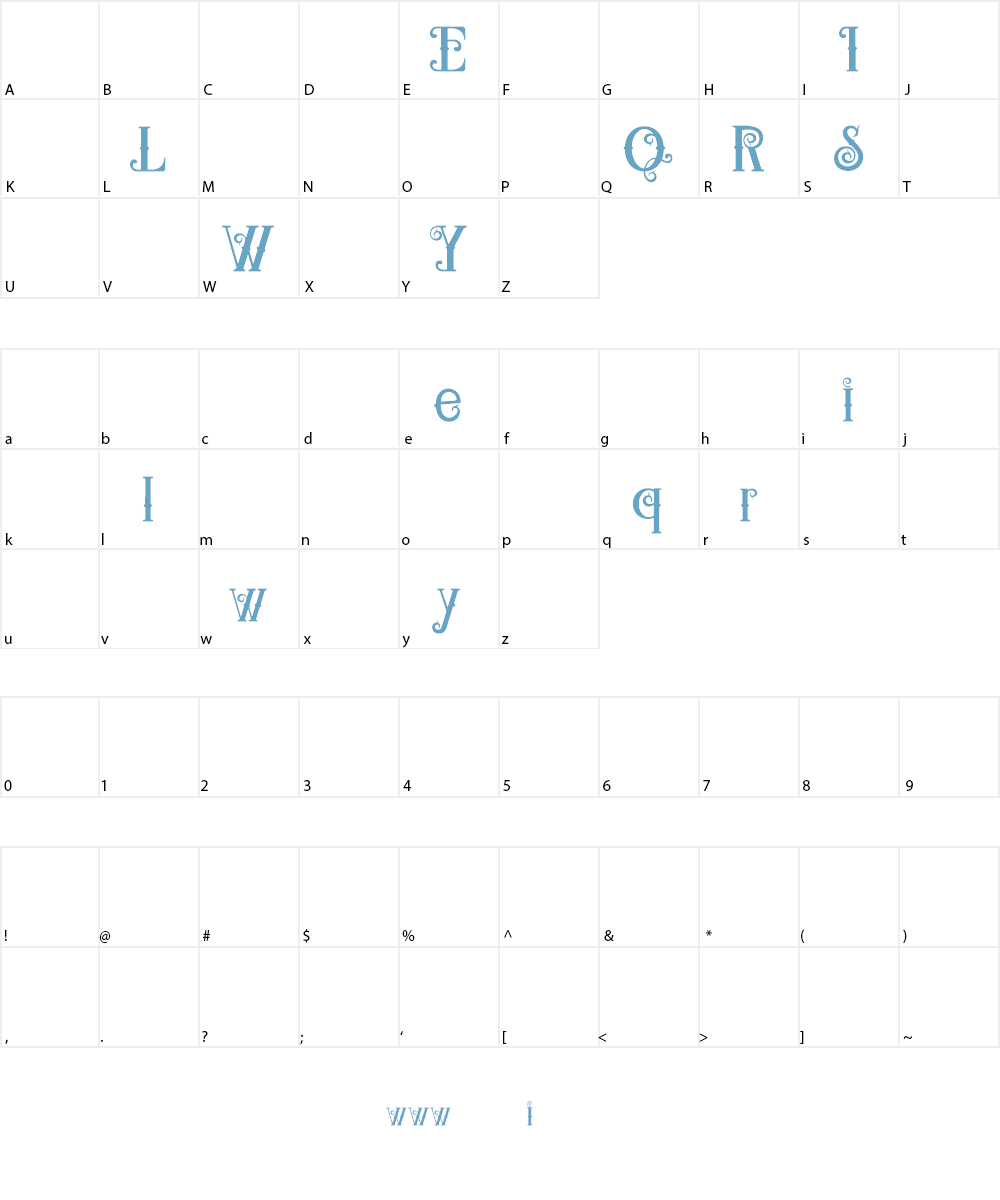
Qwerly fonts is a highly usable, powerful typeface,qwerly font inspired by a newspaper headline in the days of the Dutch East Indies , the classic posters,and back to the 1900’s.